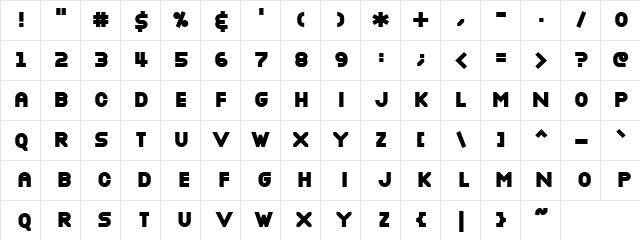
NottkeBlack Regular
Design Context for NottkeBlack
NottkeBlack is a composed and adaptable typeface that performs quietly and consistently across a wide range of design contexts.
Pro Tip: Use NottkeBlack in both headline and body roles to test its range before committing to a single application.